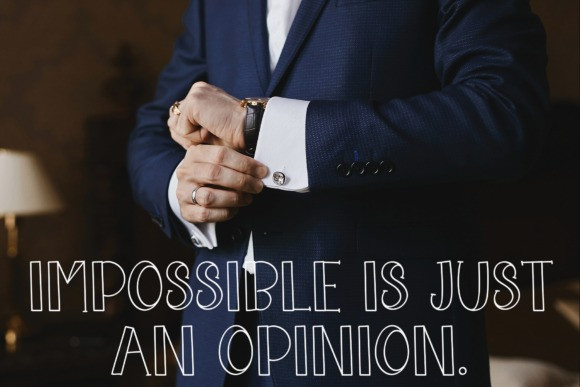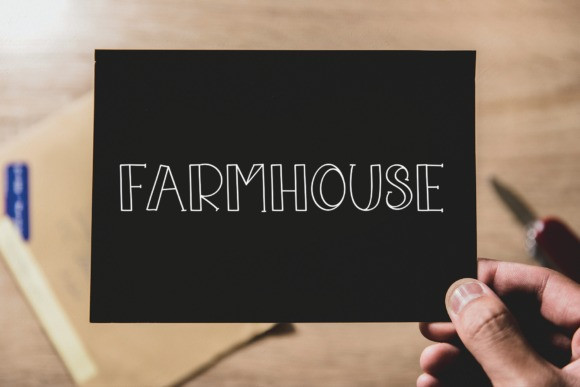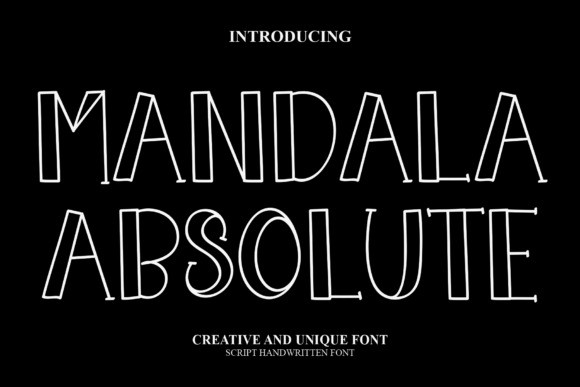
Mandala Absolute Font
Mandala Absolute Font is a chic and distinct looking display font. The characters are perfect for wall hangings, invitations, social media post logos, advertisements, product packaging, product designs, labels, photography, watermarks, invitations, stationery and any project that requires modern typography.